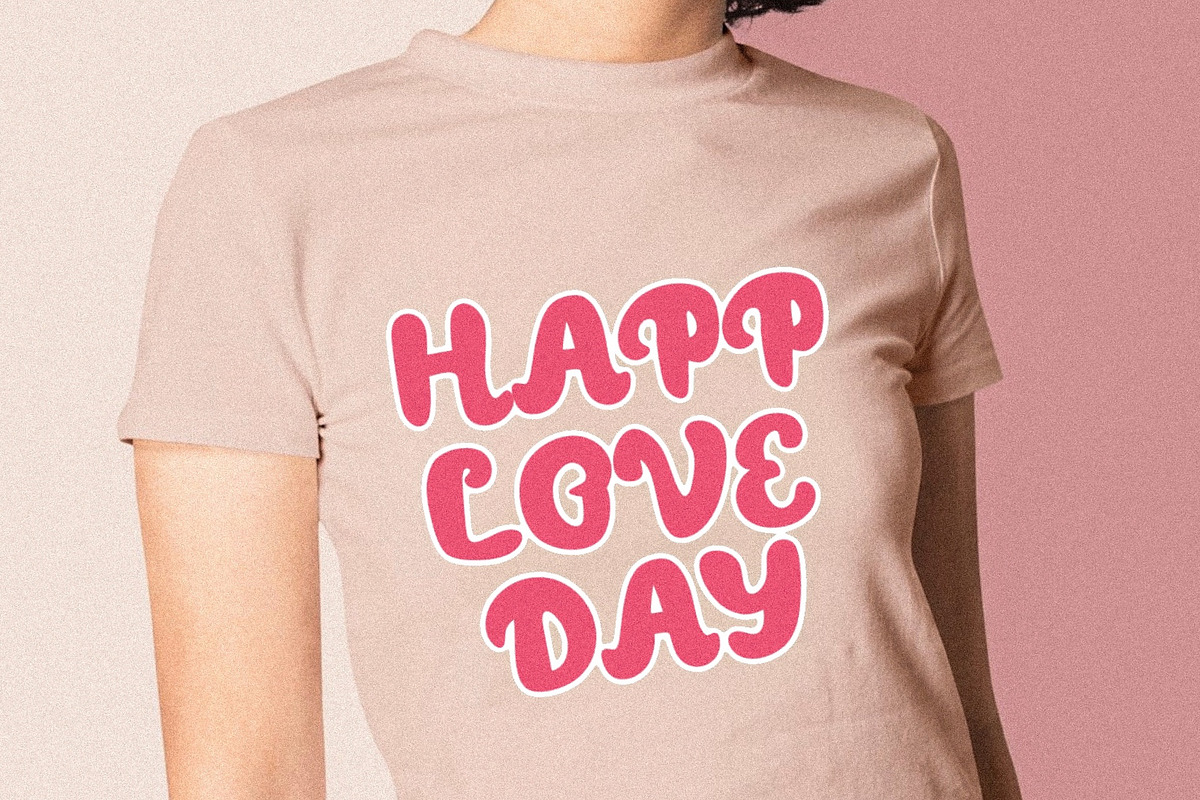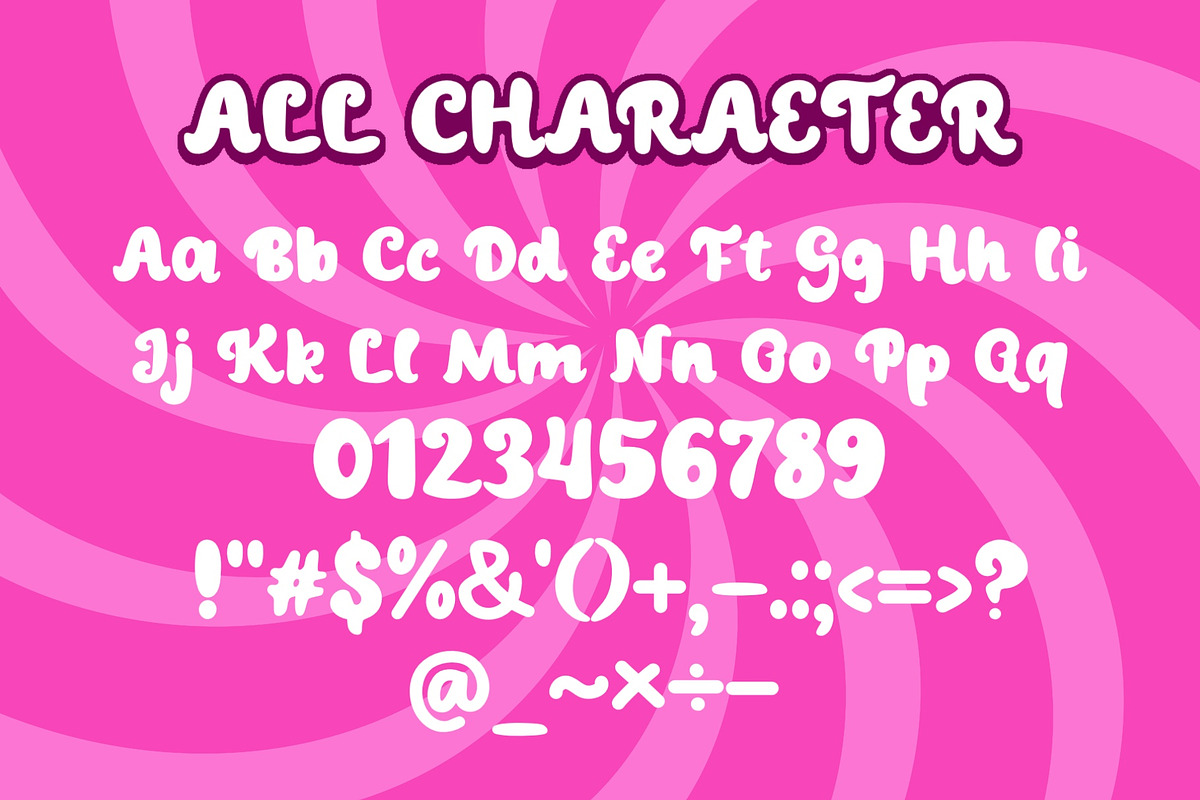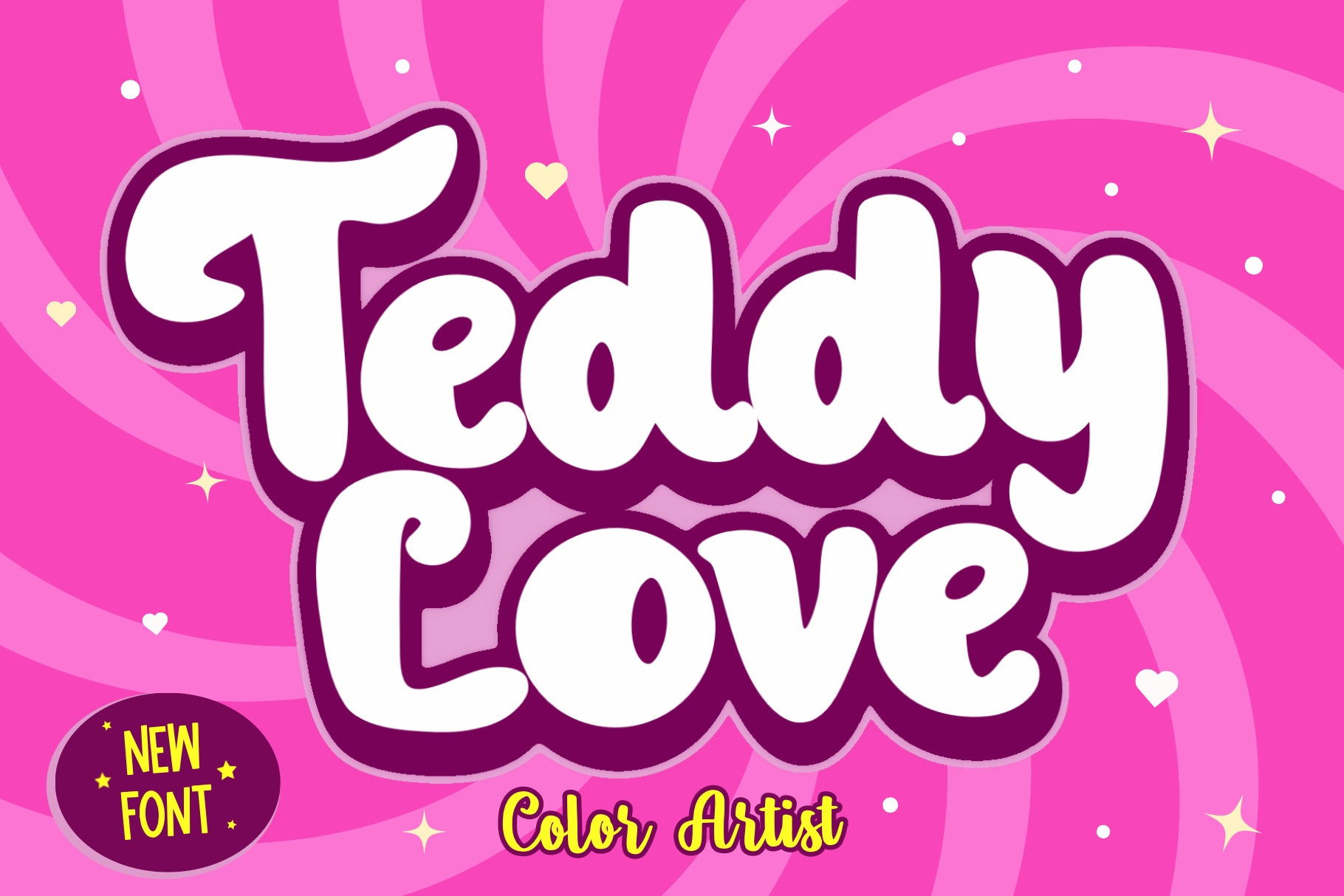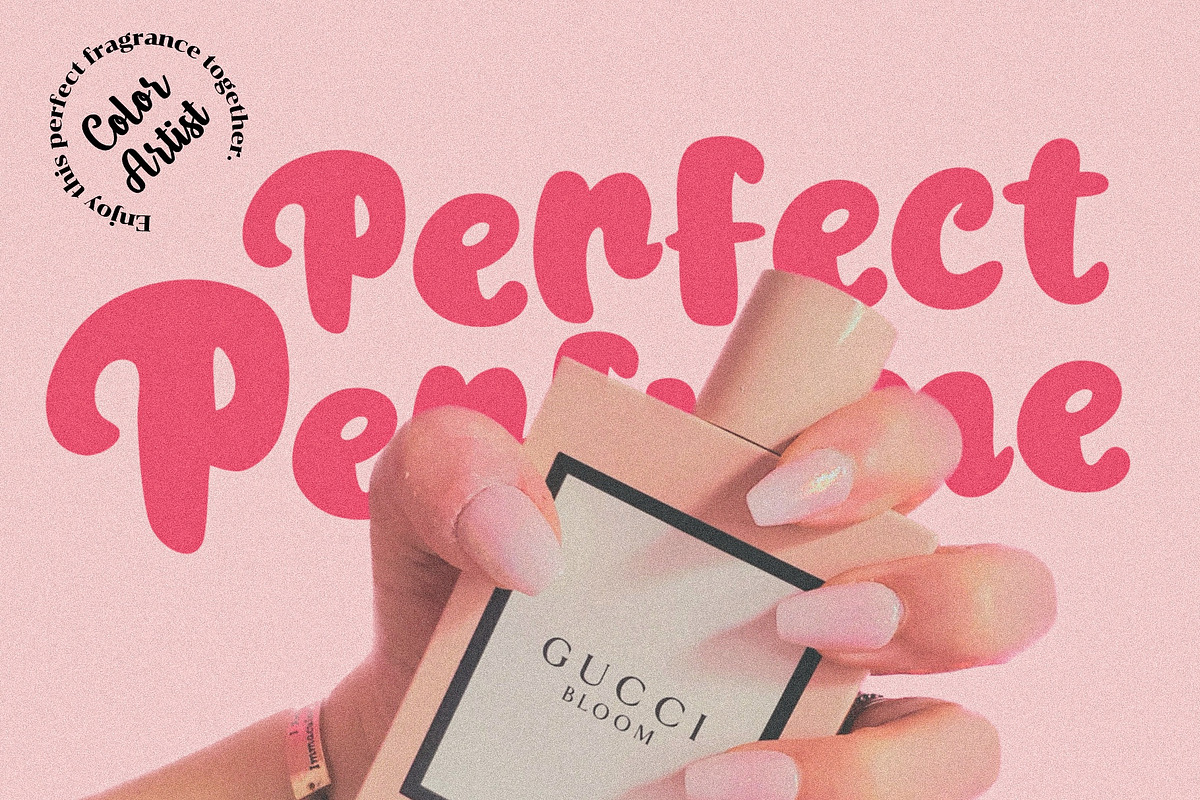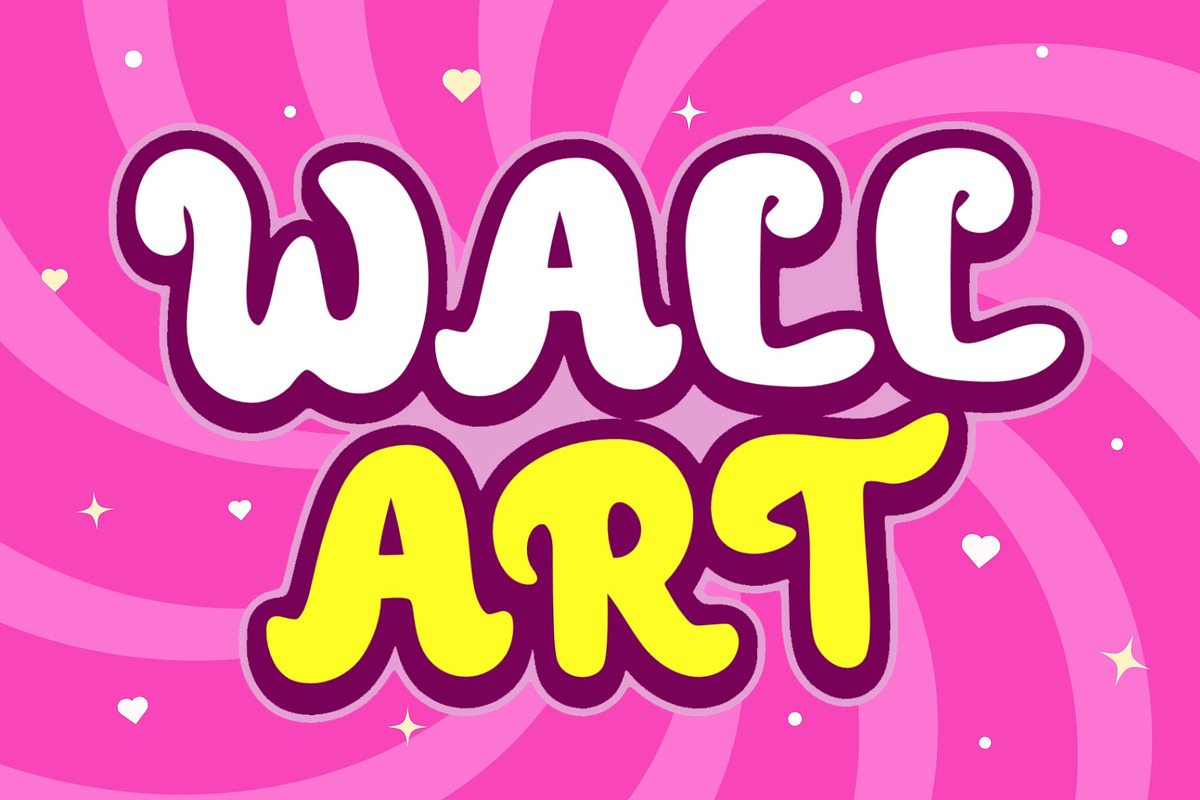
Teddy Love Font
Get ready to fall in love with our Teddy Love Font! This adorable typeface is here to steal your heart with its cute and cuddly design. Inspired by the charm of teddy bears, this font adds a touch of warmth and sweetness to any project. With its playful curves and endearing letterforms, Teddy Love Font is perfect for creating love-filled greeting cards, children's books, and nursery décor. Let your creativity soar as you design adorable invitations for baby showers and birthday parties.